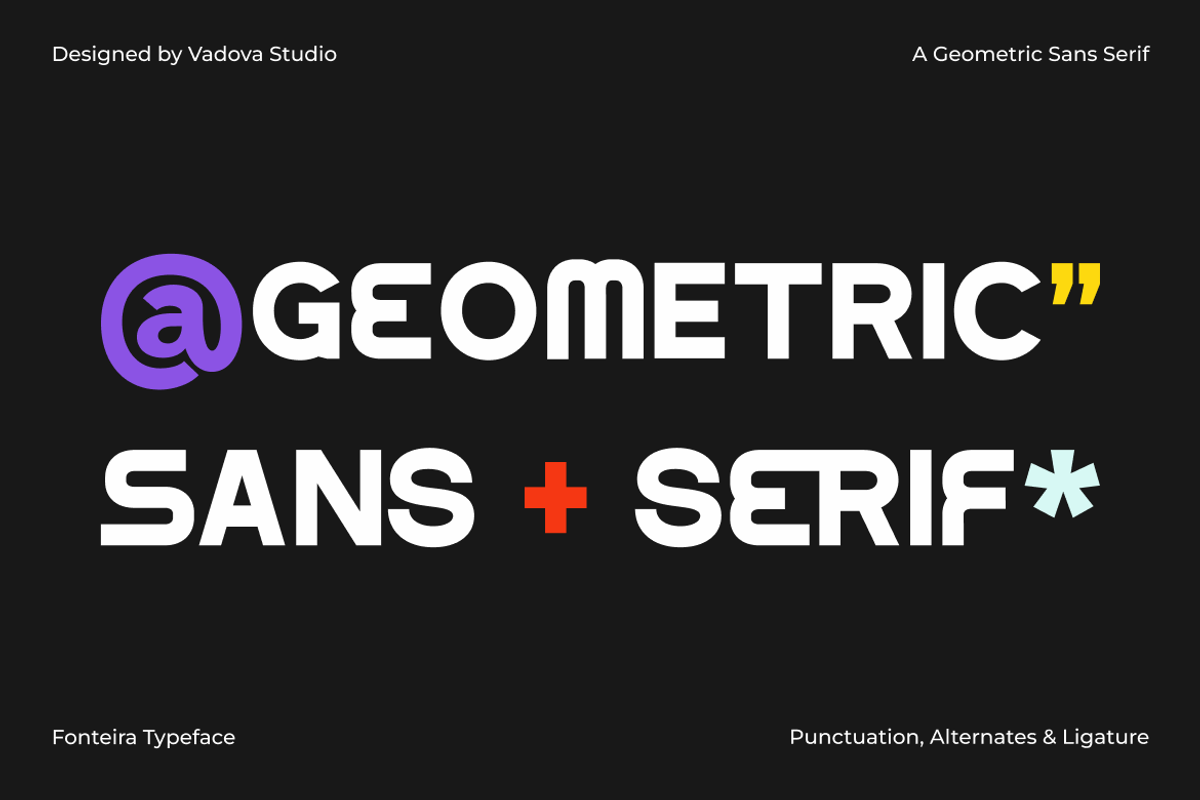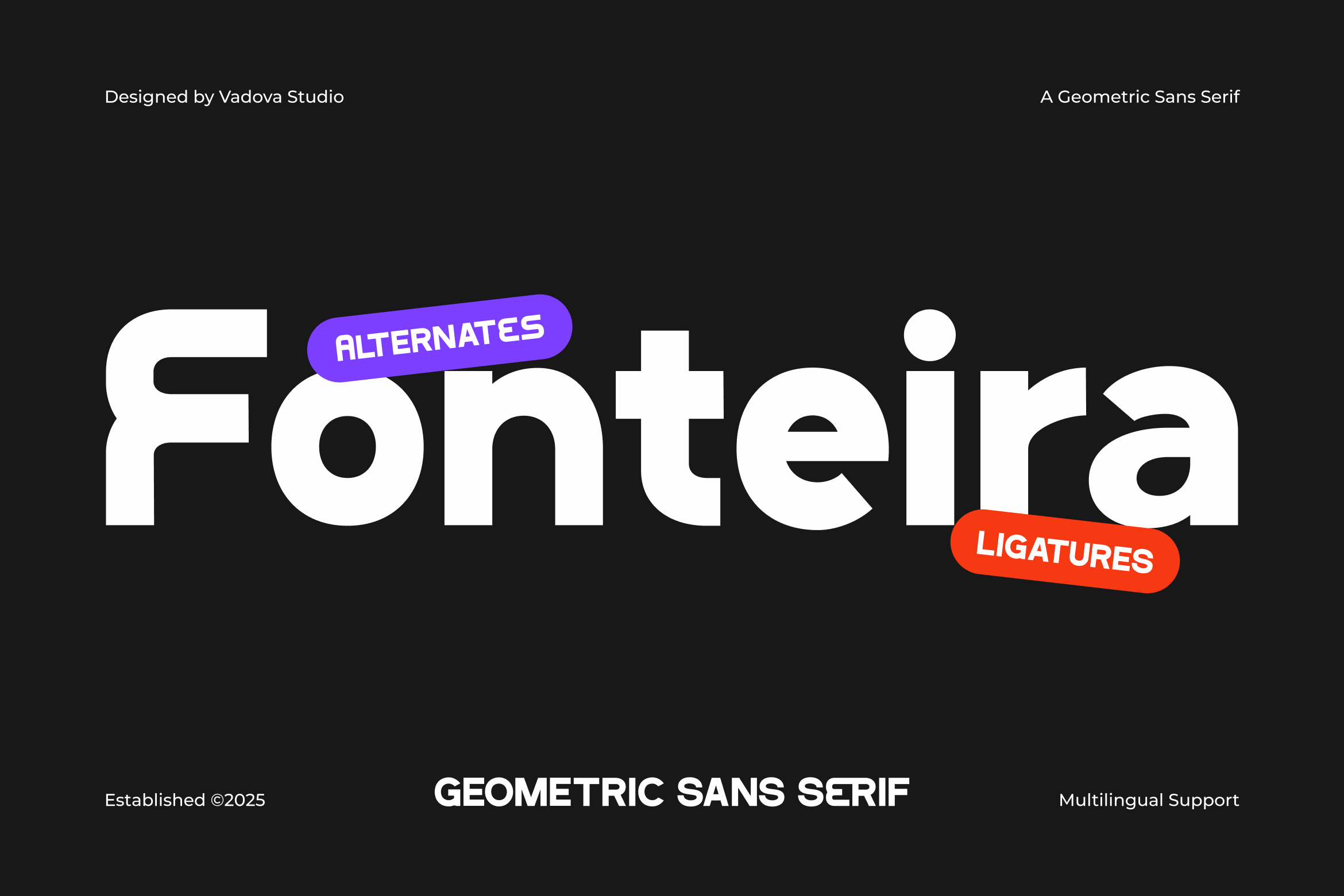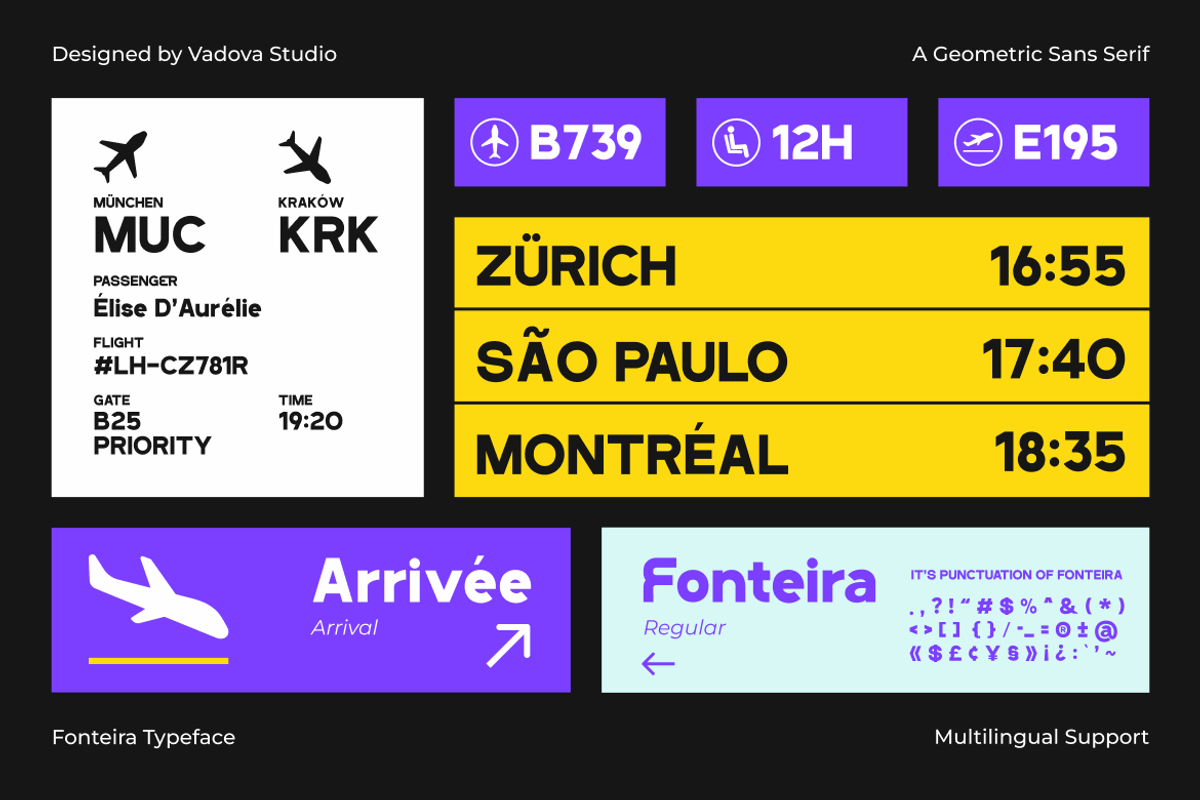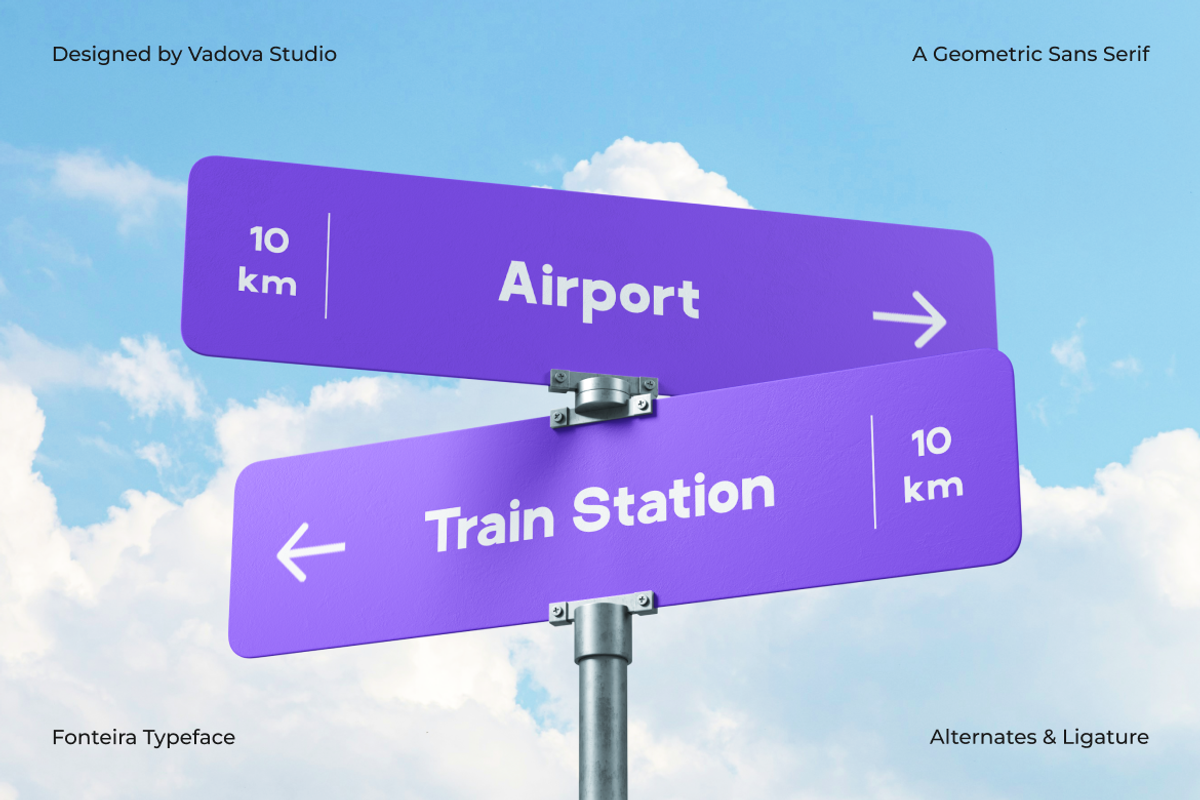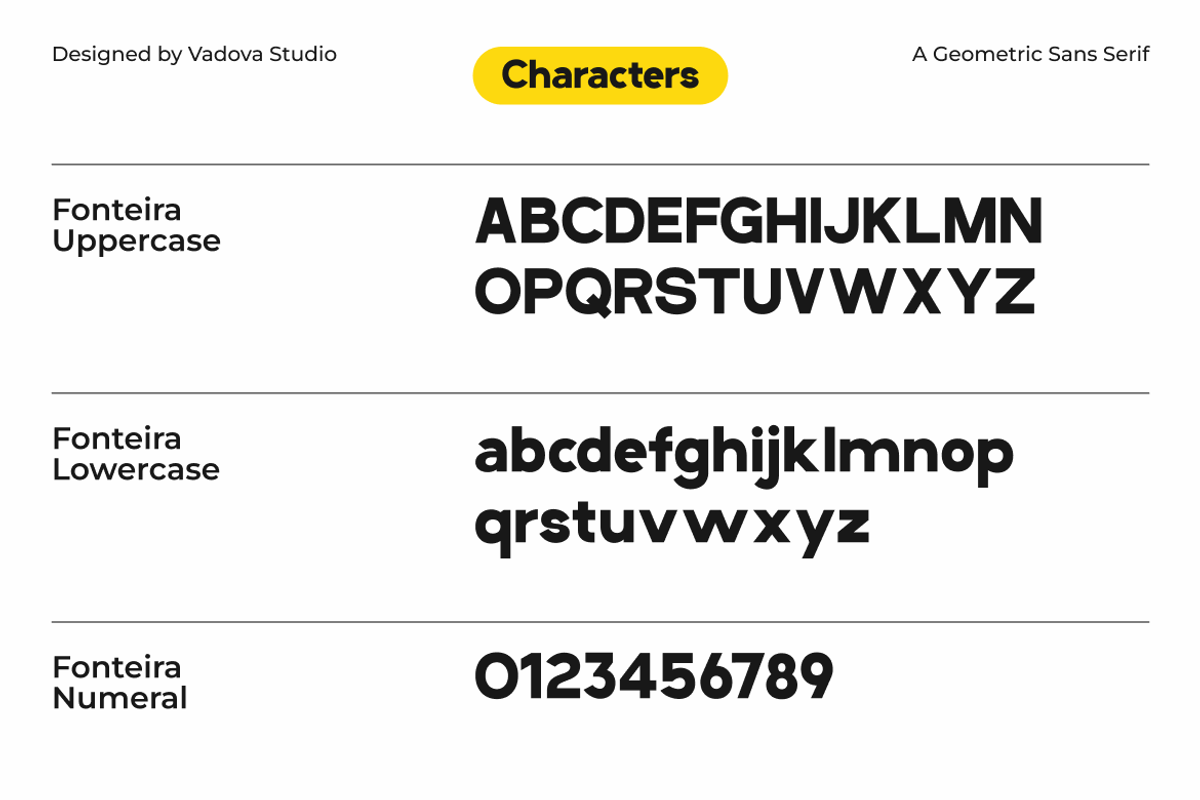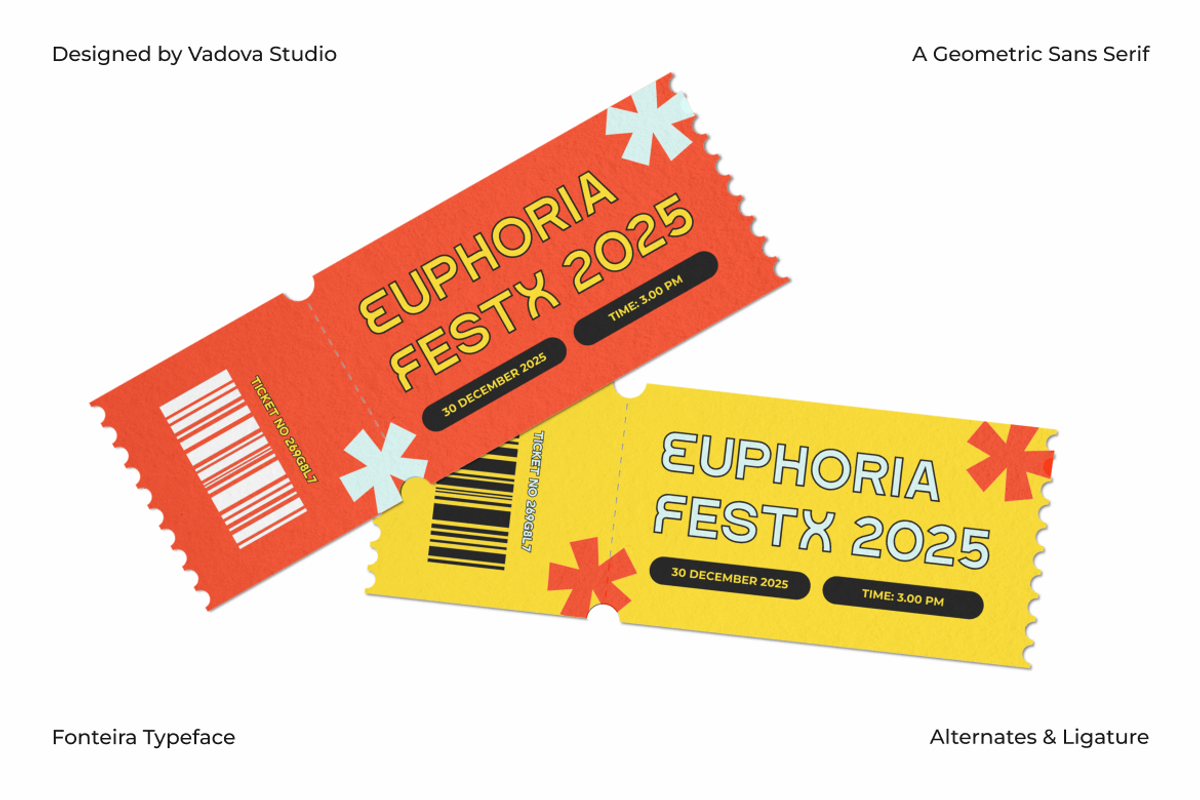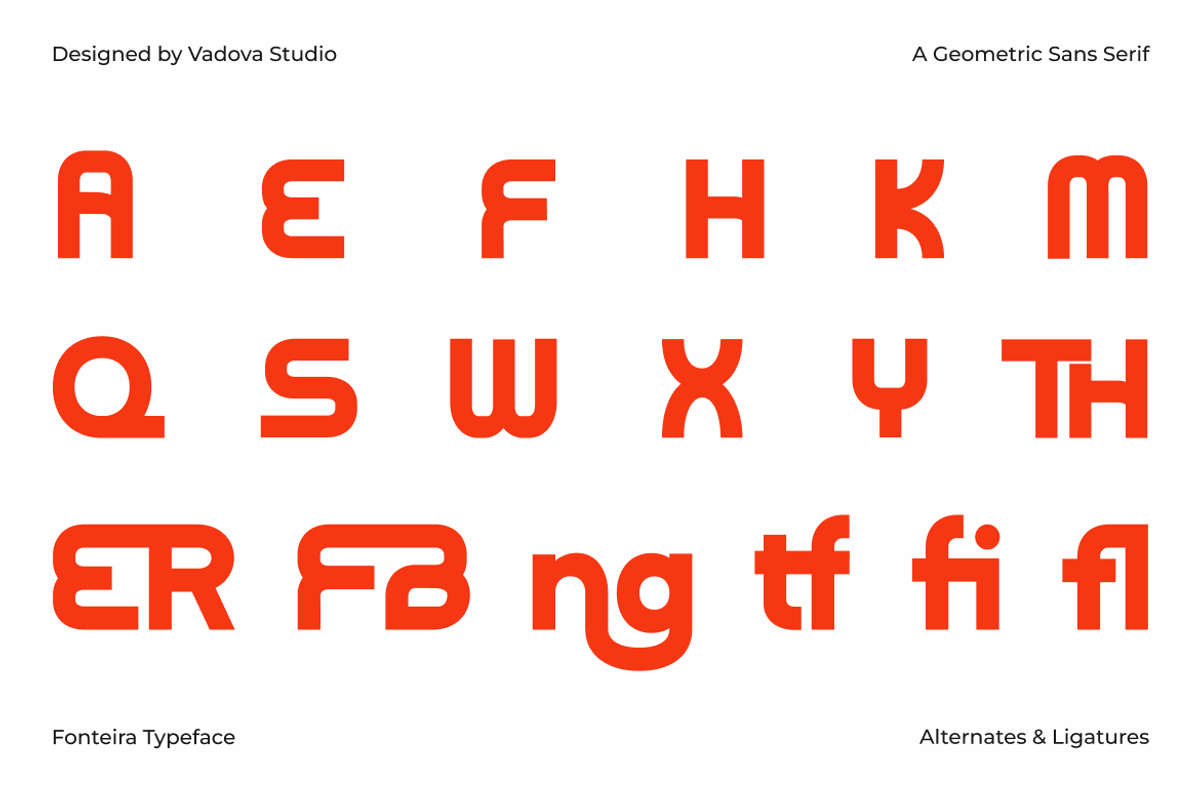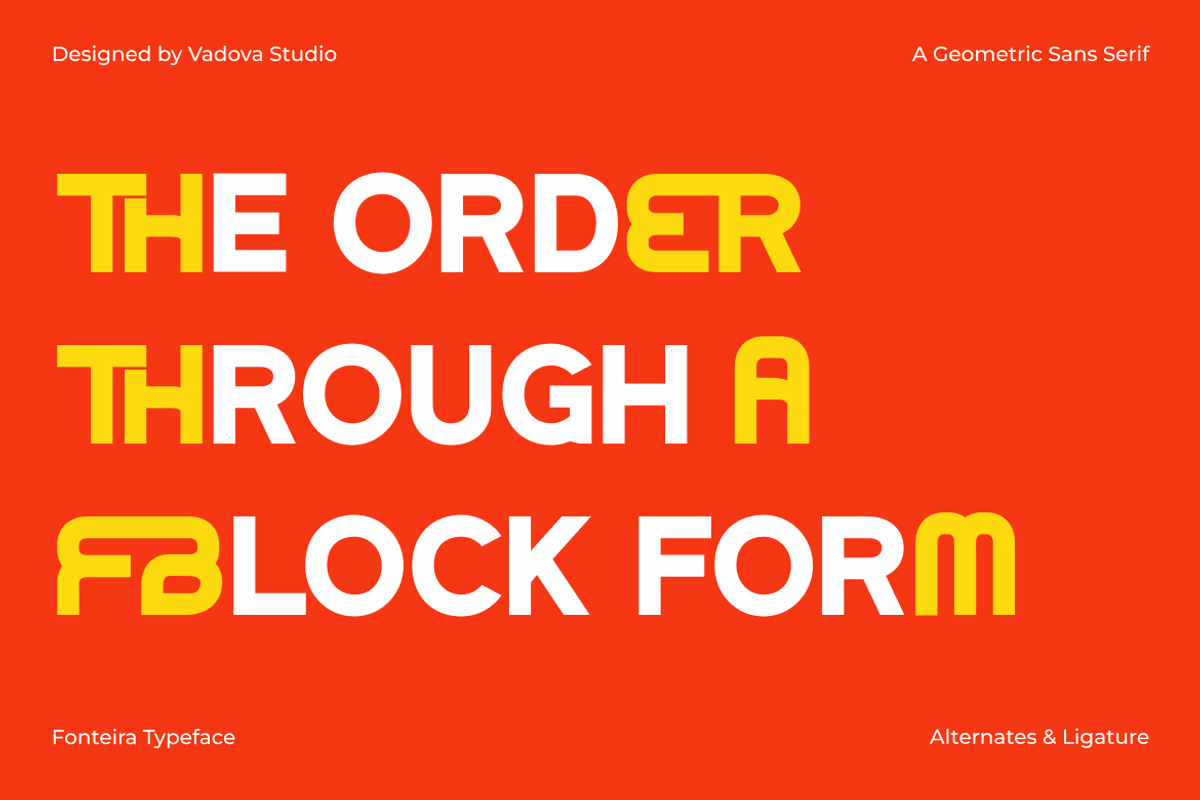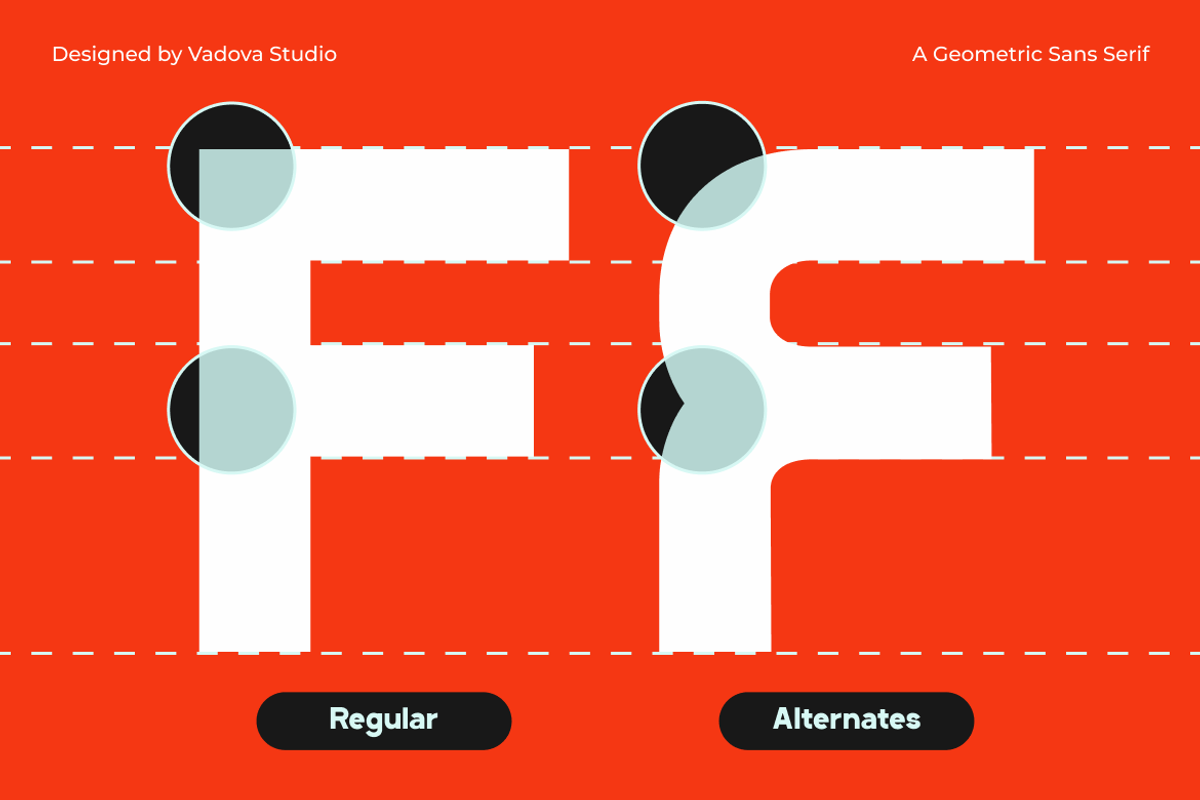
Fonteira Geometric Sans Serif Font
Fonteira is a bold and modern geometric sans serif font designed for high-impact visual communication. With clean, minimal lines and powerful structure, this typeface brings clarity and edge to your creative work. It includes full uppercase and lowercase characters, numerals, punctuation, multilingual support, and a rich set of stylistic alternates and ligatures to expand your design possibilities.
Fonteira is crafted for creative professionals who want to make a visual statement. Its geometric style and bold presence make it ideal for startups, tech brands, editorial headlines, and digital campaigns. Whether you're designing a website interface, mobile app, poster, or brand logo, Fonteira adds structure and modernity to any layout.
- Bold geometric sans serif with a modern, modular structure
- Distinctive block letterforms with a futuristic flair
- Stylistic alternates and ligatures for added versatility
- High x-height and open counters for maximum legibility
- Balanced proportions ideal for headlines, branding, and UI design
- Brand identities that require a bold and futuristic geometric style
- Tech company logos, apps, and startup landing pages
- UI/UX mockups and responsive digital interfaces
- Posters, headlines, and bold editorial typographic layouts
- Social media kits, marketing visuals digital campaigns